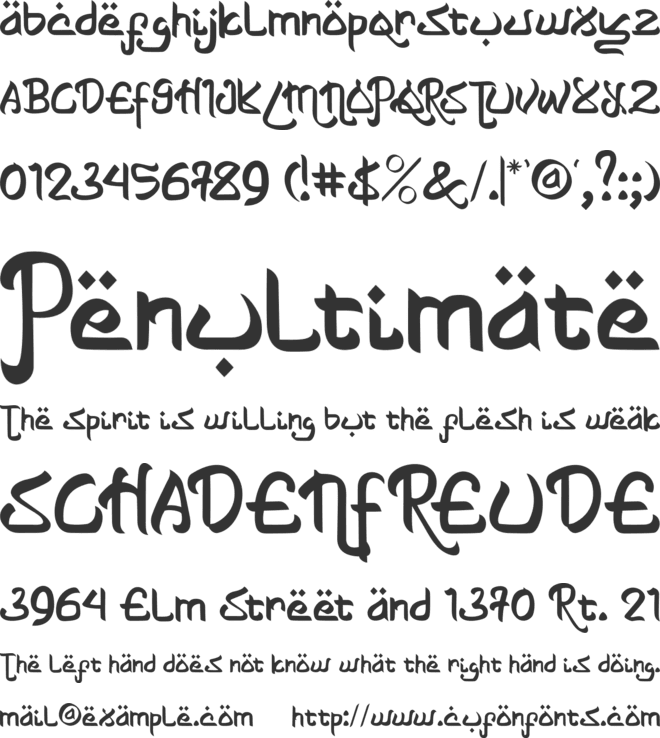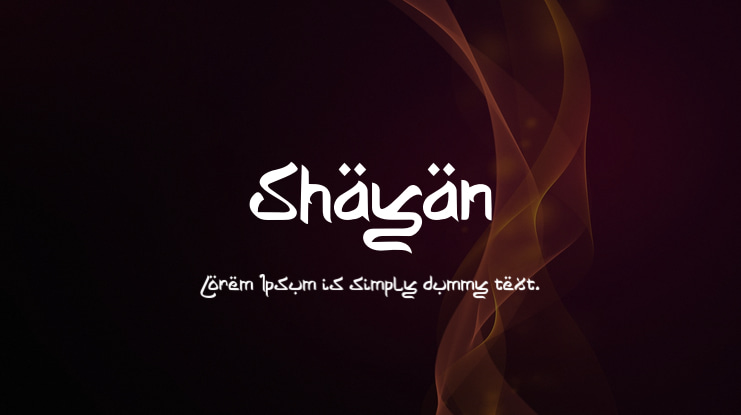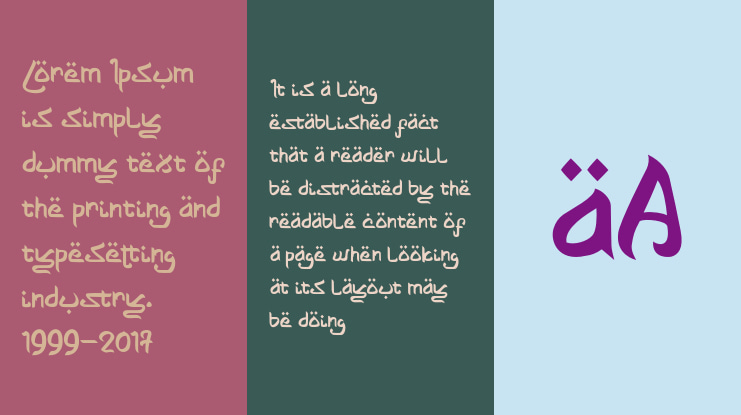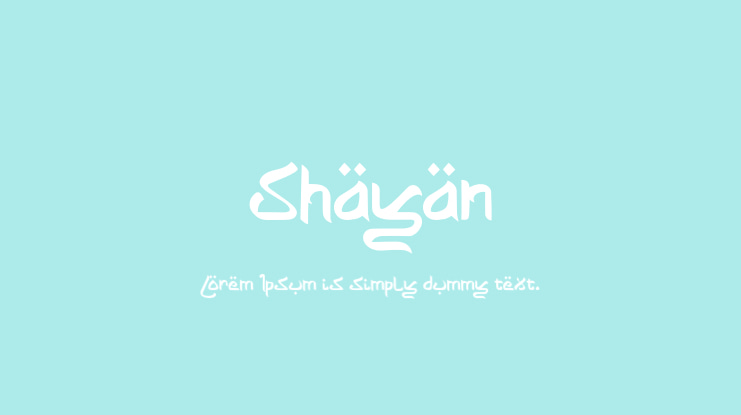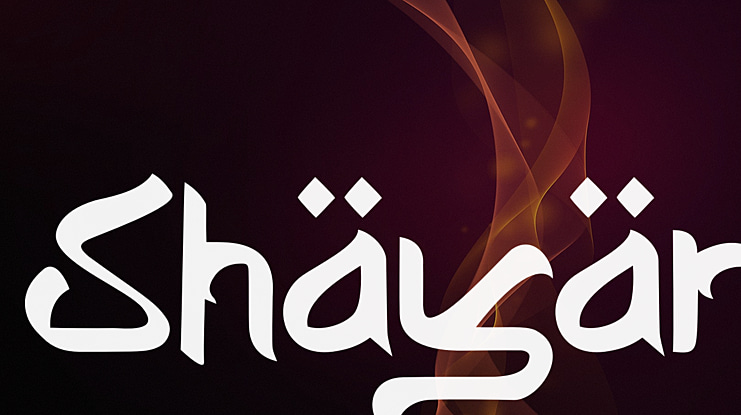
Shayan Font
Shayan is an interesting display font inspired by the style and feel of the Middle East Arabic.This font is suitable for branding logos, Ramadan themes, and any other projects you can think of.Full Version Download Here :https://typefactory.co/product/shayan-arabic-font/https://www.creativefabrica.com/product/shayan/ref/501262/